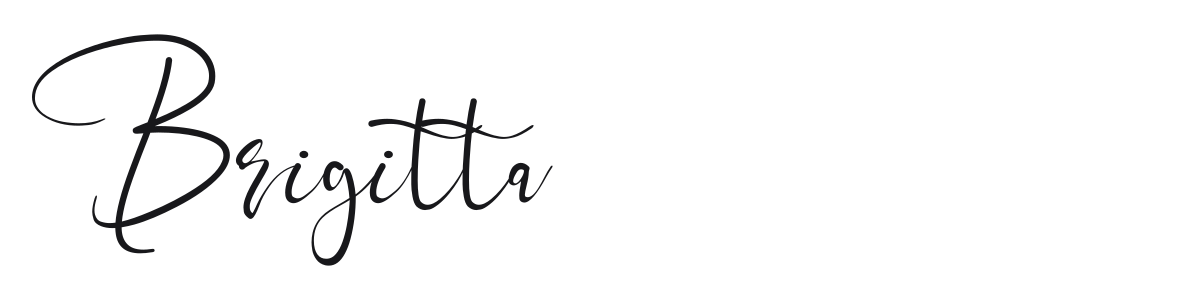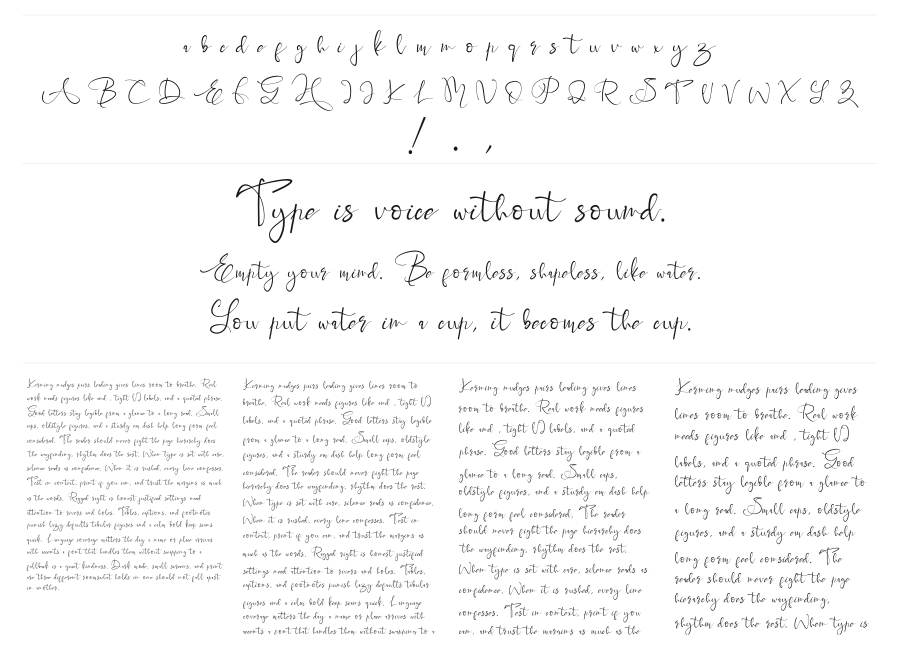
Brigitta
Brigitta is a flowing casual script from Letterara with bouncy baseline rhythm and sweeping looping strokes. The light weight and airy curves give it a romantic, handwritten warmth without feeling overly formal. It reads best at large sizes where its calligraphic details can breathe.